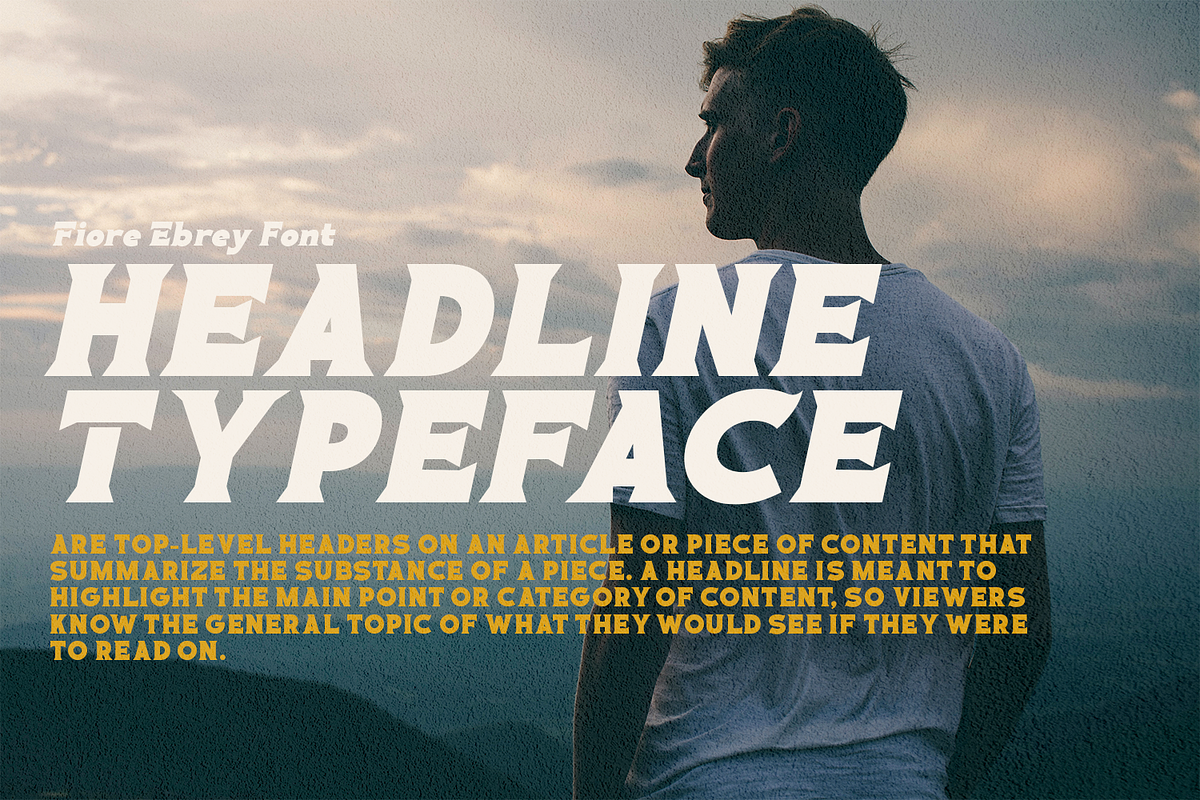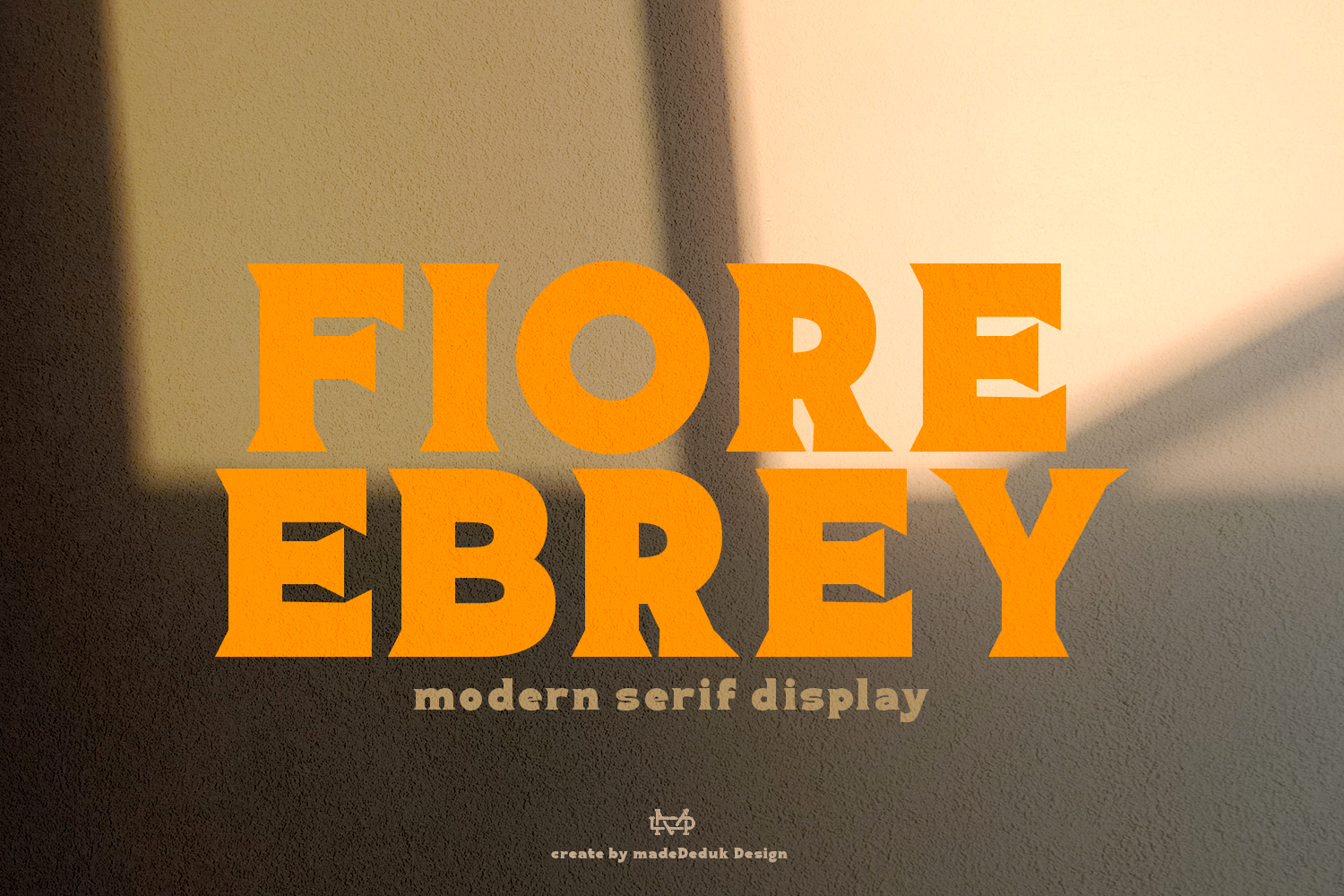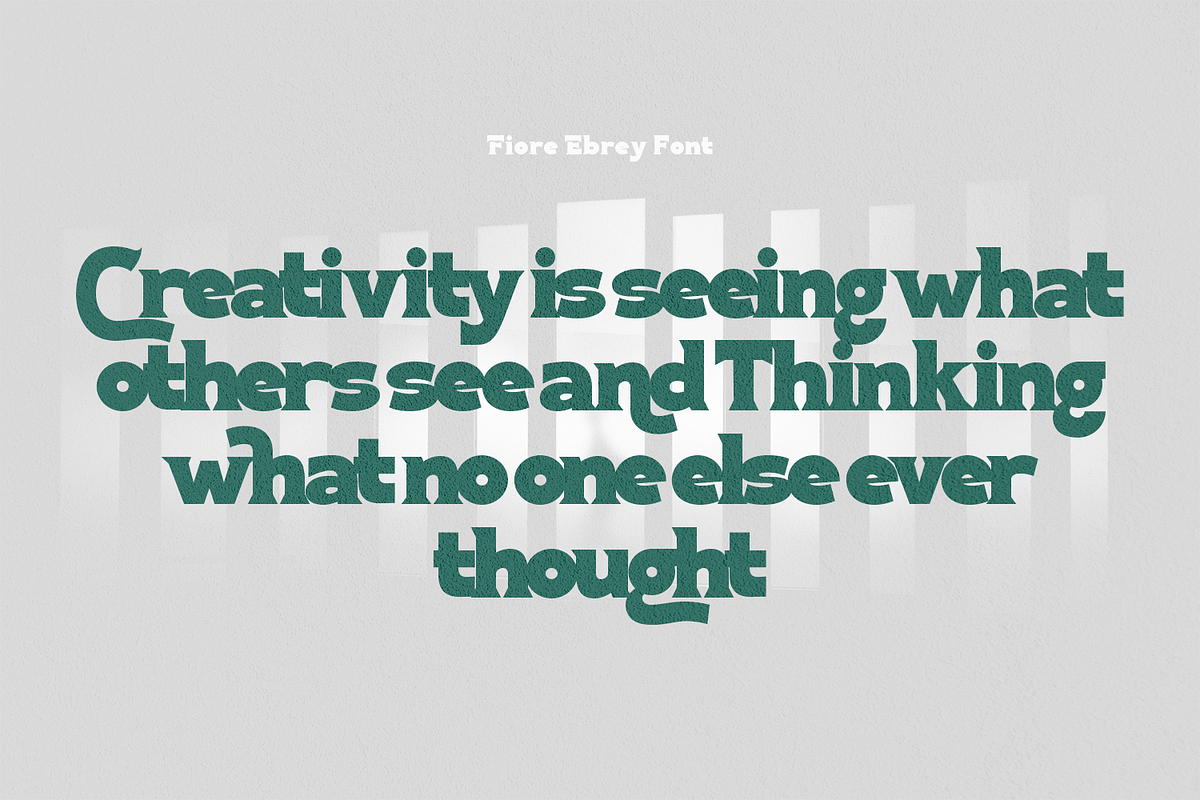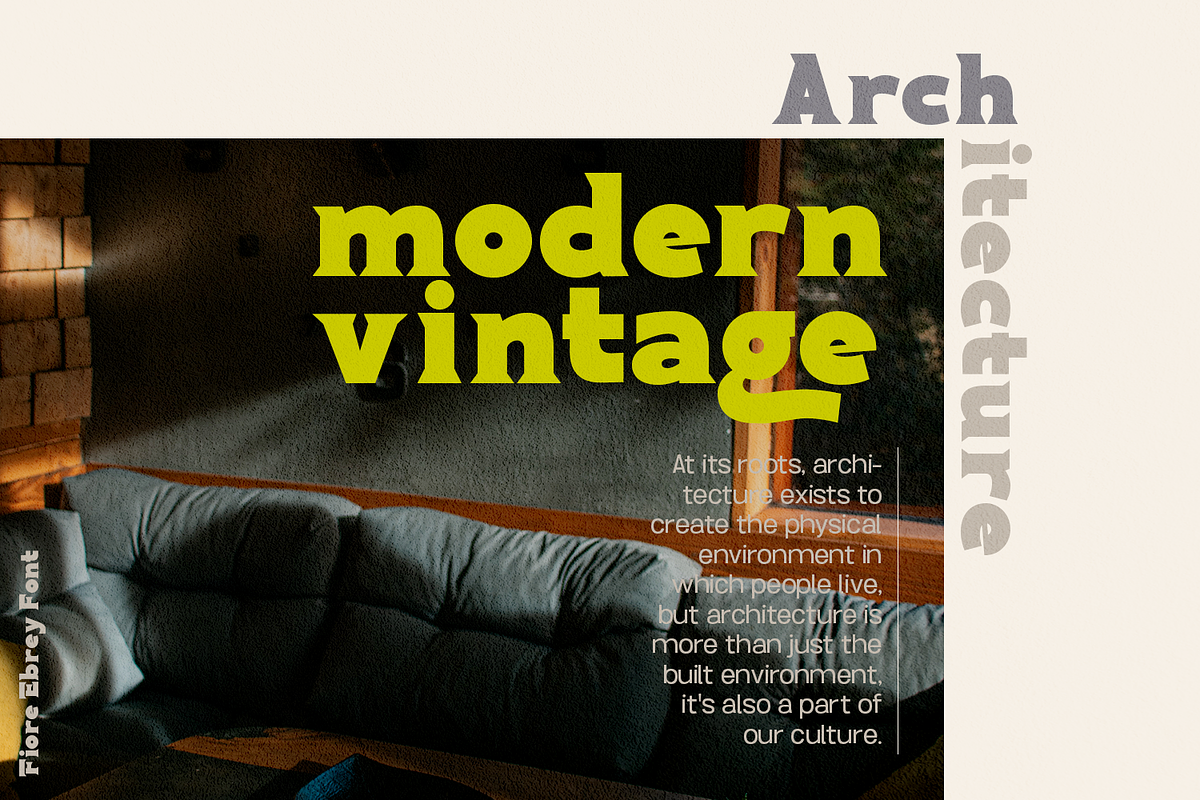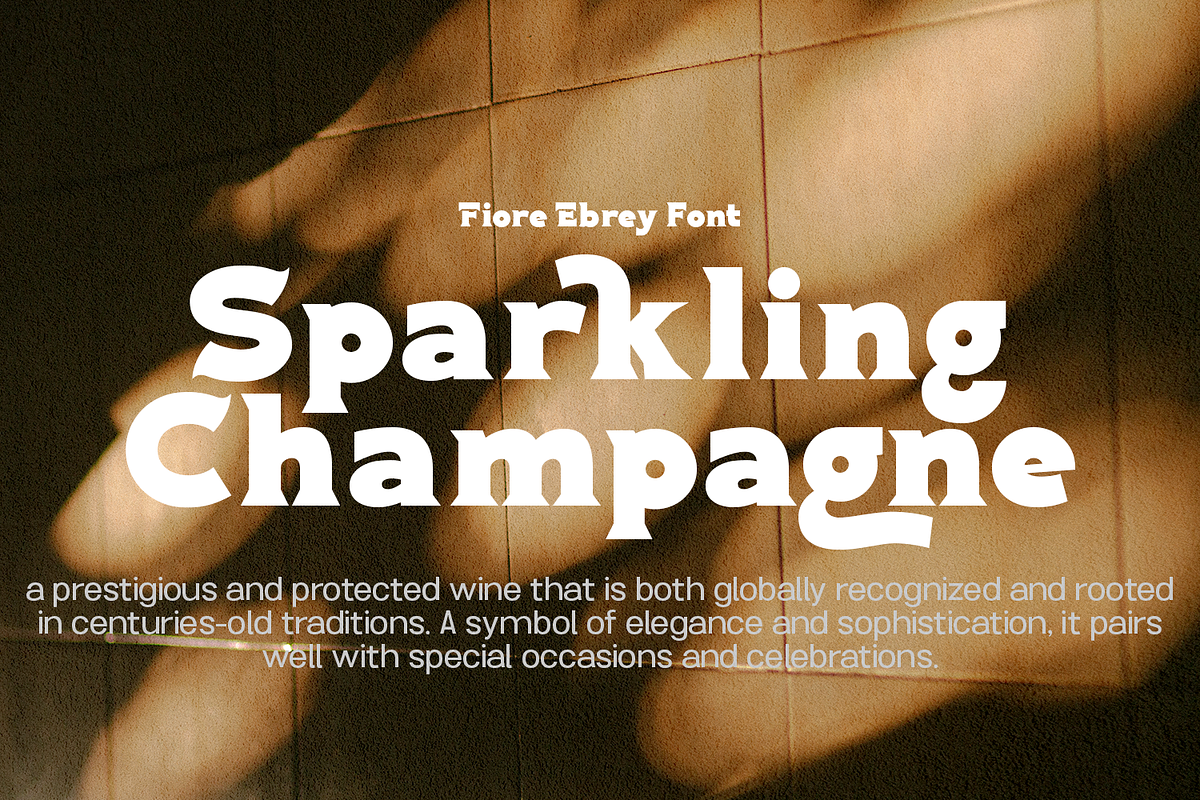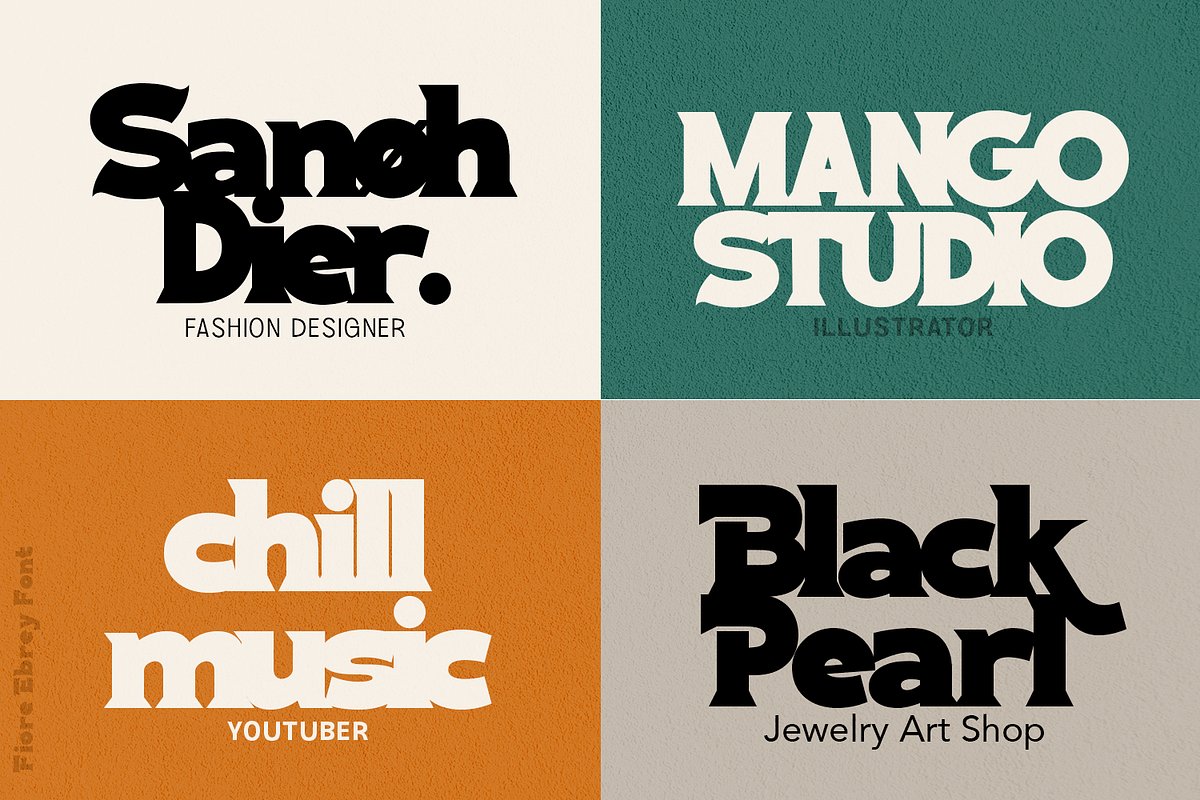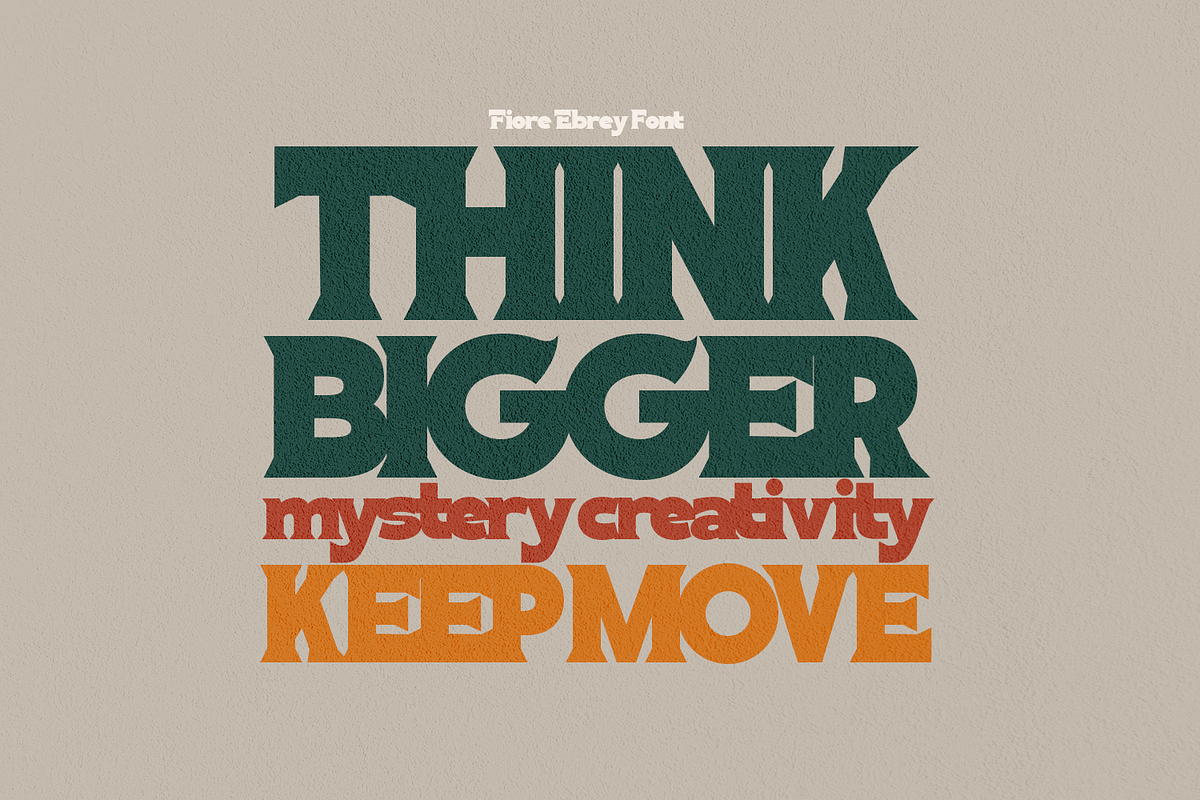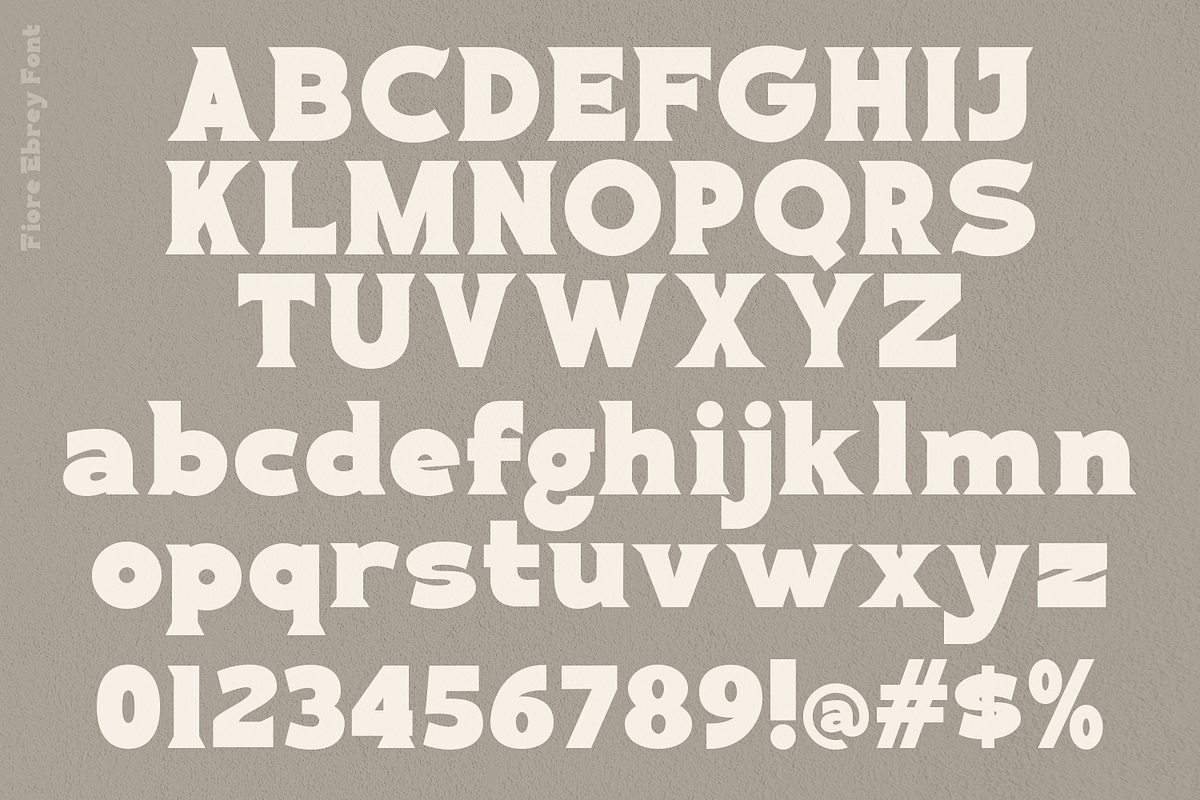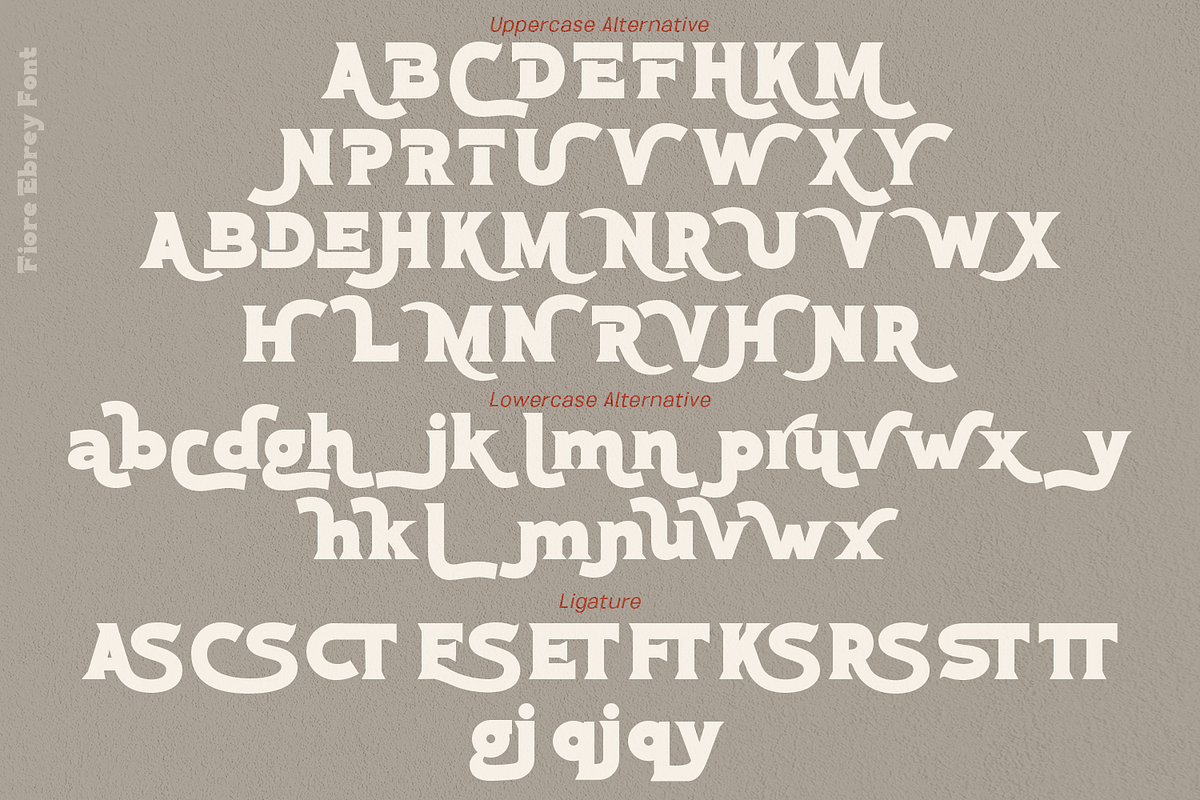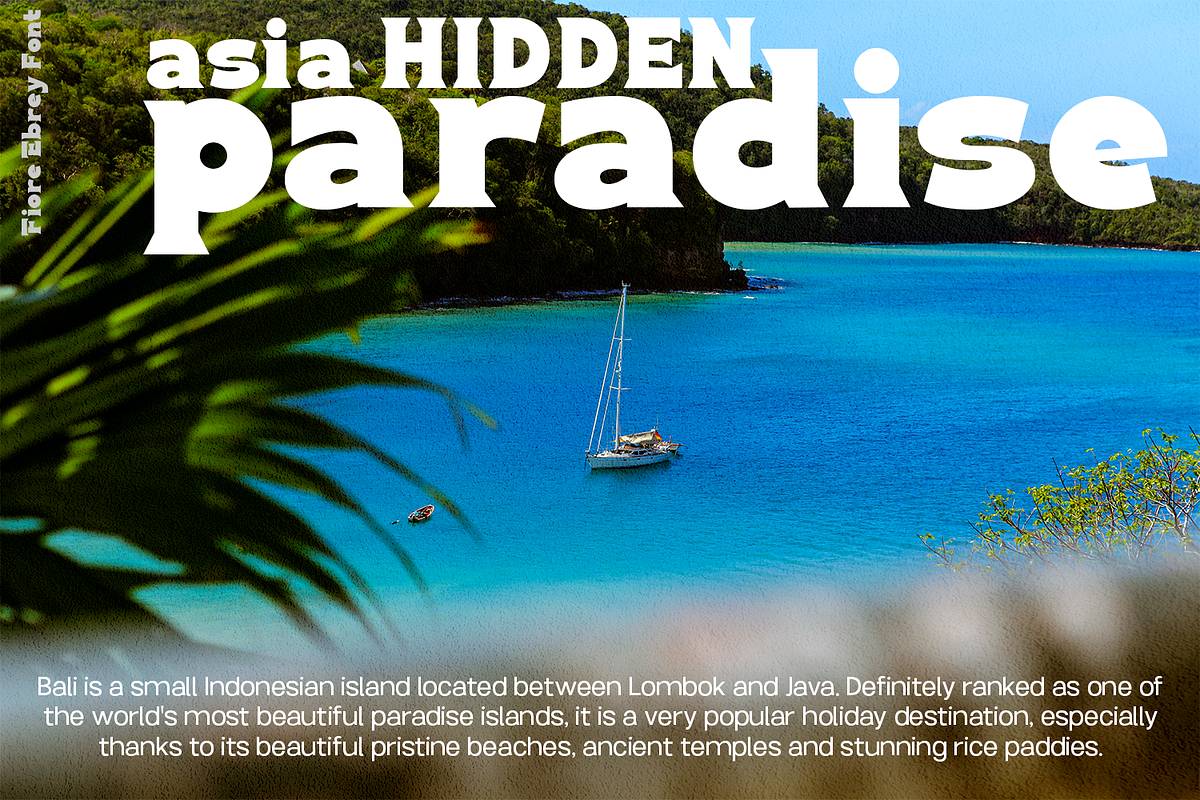
Fiore Ebrey - Display Font
Fiore Ebrey is a serif display, come with single weight, legible and expressive shapes. A lot of stylish alternates characters and ligature will makes this font suitable for your any project design.
- International Glyphs
- ligature